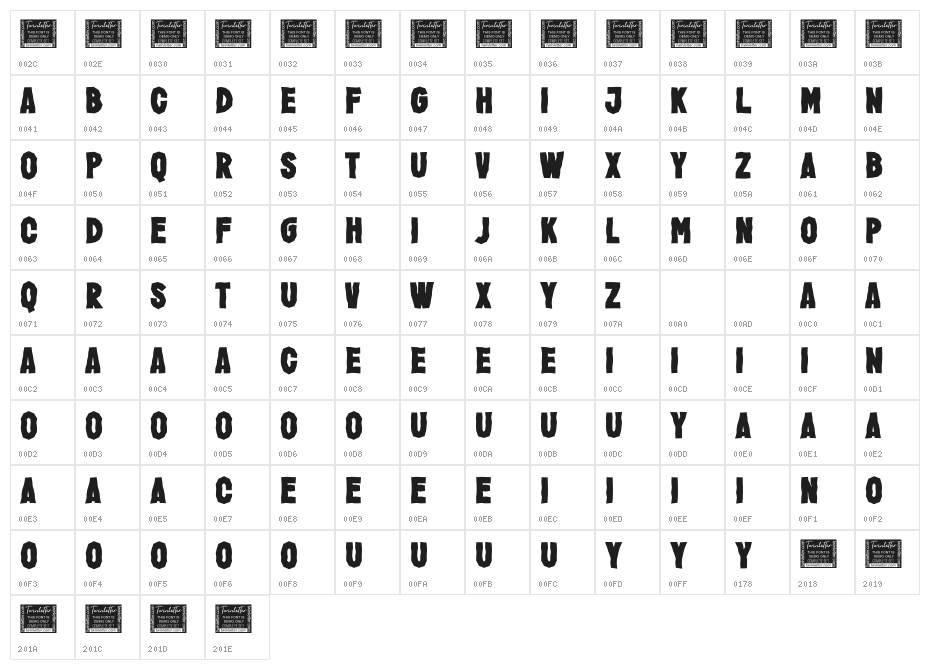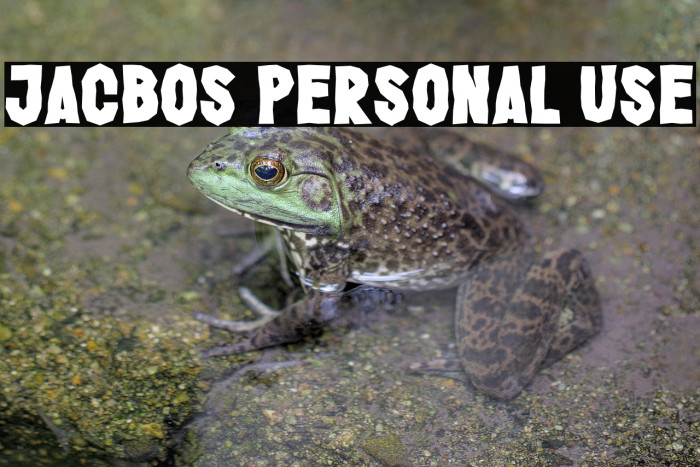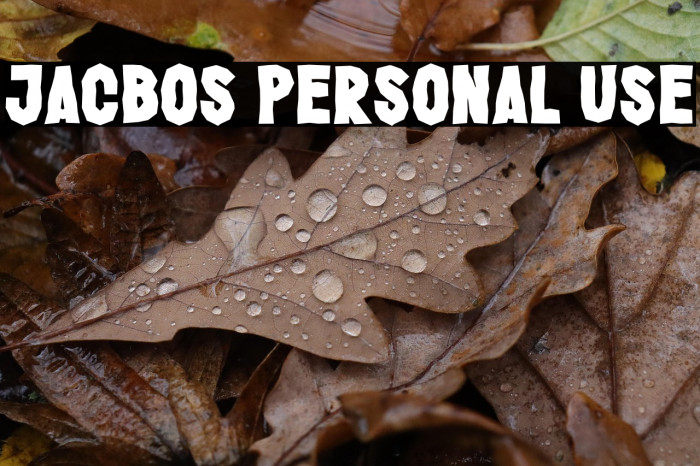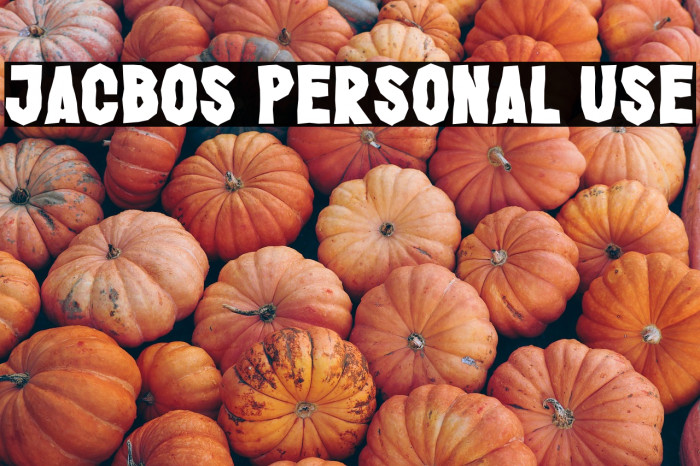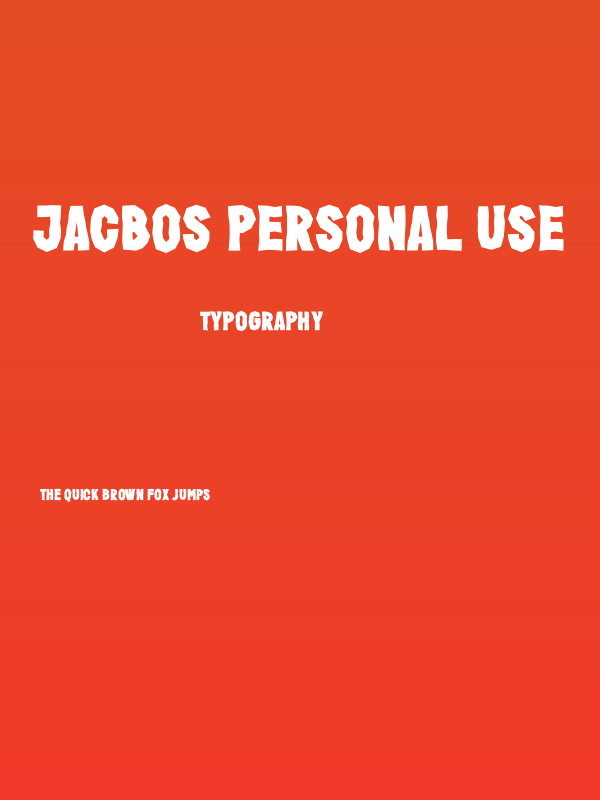
Jacbos Personal Use Font
Jacbos Personal Use Description
This bold and dynamic font features a rugged, hand-drawn aesthetic that gives it a unique and eye-catching appearance. The characters are irregularly shaped, with jagged edges and varying stroke widths, creating a sense of movement and energy. This style is reminiscent of graffiti or street art, making it ideal for projects that require a bold and unconventional look. The uppercase letters are particularly striking, with their angular forms and strong presence. The font's playful yet edgy design makes it suitable for a variety of creative applications, from posters and album covers to branding and advertising materials.